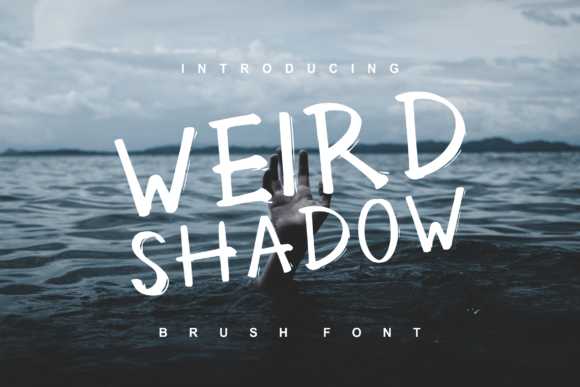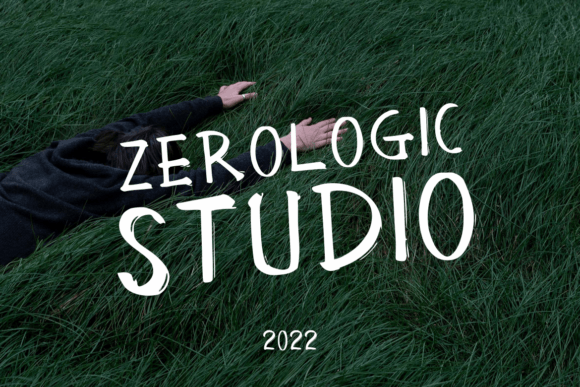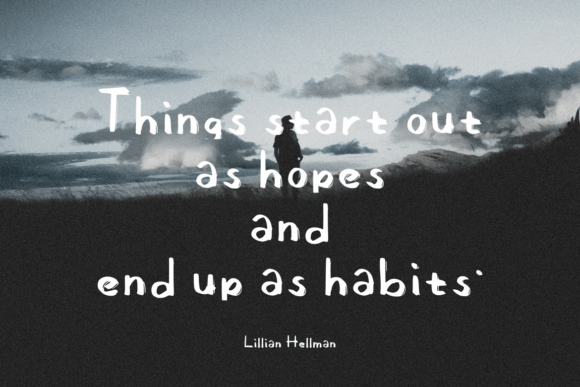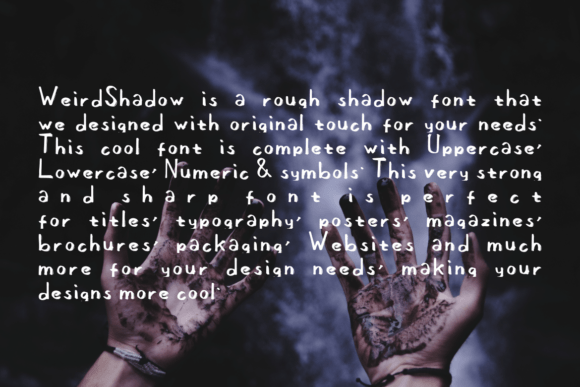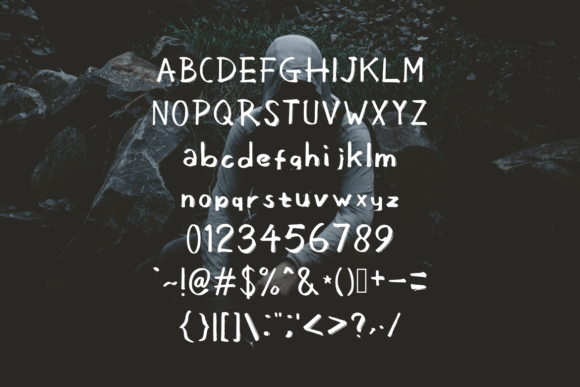
Weird Shadow Font
Weird Shadow Font Download – Quirky Handwritten Brush Script
The Weird Shadow Font download is a playful handwritten brush typeface designed to add character and charm to your projects. With its quirky strokes and casual flow, this font makes every design feel unique and engaging. Because of its versatile structure, it adapts seamlessly to a wide range of creative applications.
Quirky Handwritten Brush Style
Weird Shadow features bold brush strokes that create a natural, handcrafted look. As a result, it brings personality and originality to your text. In addition, its playful energy ensures your designs stand out in both digital and print settings.
From fun invitations to casual greeting cards, this font delivers warmth and style. It makes words feel more personal and approachable. Therefore, it is an excellent option for creative stationery and DIY projects.
Weird Shadow Font Download for Posters and Logos
The Weird Shadow Font download also works beautifully in posters, logos, and branding. Its brush script design gives projects a dynamic and artistic feel while keeping them professional and clear.
Versatility Across Creative Projects
From t-shirts and stickers to social media posts and product packaging, Weird Shadow adapts with ease. In addition, its handcrafted appearance makes it a favorite for designs that require a human touch.
Readability and Balanced Design
While many brush fonts can become too rough or messy, Weird Shadow maintains readability. As a result, it is effective for bold headlines, marketing materials, and even smaller decorative details.
Why Add This Typeface to Your Collection?
The Weird Shadow Font download is versatile, stylish, and simple to use. In other words, it works for invitations, posters, apparel, branding, and digital media alike. Finally, it is a quirky handwritten brush script that adds originality, fun, and personality to every project.